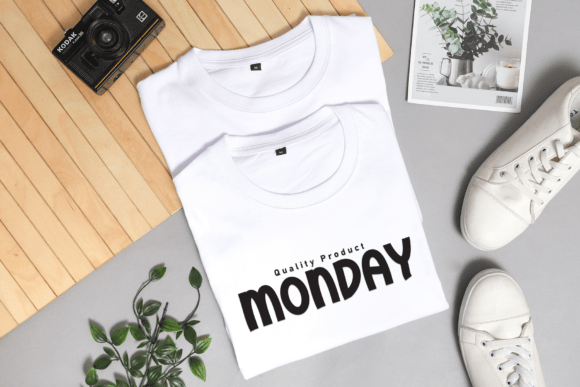
Cookies and Cream Font: A Perfect Blend of Simplicity and Friendliness
In the world of typography, fonts play a crucial role in conveying the tone and personality of a brand. Among the numerous fonts available, Cookies and Cream Font stands out for its unique blend of simplicity, friendliness, and approachability. This casual and neat display font has gained popularity for its ability to add a warm and inviting touch to various design projects. In this article, we’ll delve into the features, benefits, and uses of Cookies and Cream Font, exploring why it’s an excellent choice for designers and brands alike.
What is Cookies and Cream Font?
Cookies and Cream Font is a display font designed to capture the essence of modern handwritten typography with a polished finish. Its clean lines, balanced letterforms, and subtle rounded edges create a visually appealing and harmonious look. The font’s design is inspired by the classic and timeless feel of handwritten scripts, but with a modern twist that makes it perfect for contemporary design projects.
Key Features of Cookies and Cream Font
- Clean Lines: The font features clean and precise lines that give it a crisp and modern look.
- Balanced Letterforms: The letterforms are carefully crafted to ensure balance and harmony, making the text easy to read and visually appealing.
- Subtle Rounded Edges: The subtle rounded edges add a touch of friendliness and approachability to the font, making it perfect for brands that want to convey a warm and inviting image.
- Versatile Style: The font’s versatile style makes it suitable for a wide range of design projects, from branding and headlines to packaging and digital content.
Benefits of Using Cookies and Cream Font
Cookies and Cream Font offers several benefits that make it an excellent choice for designers and brands. Some of the key benefits include:
- Improved Readability: The font’s clean lines and balanced letterforms ensure excellent readability, making it perfect for body text and headlines.
- Enhanced Visual Appeal: The font’s subtle rounded edges and modern design give it a unique visual appeal that can enhance the overall look of a design project.
- Versatility: The font’s versatile style makes it suitable for various design projects, from print to digital media.
- Time-Saving: The font’s pre-designed characters and styles save designers time and effort, allowing them to focus on other aspects of the design project.
Uses of Cookies and Cream Font
Cookies and Cream Font is a versatile font that can be used in various design projects, including:
- Branding: The font’s modern design and friendly vibe make it perfect for branding projects, such as logos, business cards, and letterheads.
- Headlines: The font’s clean lines and bold styles make it suitable for headlines, titles, and subtitles.
- Packaging: The font’s versatility and visual appeal make it perfect for packaging design, including labels, tags, and product descriptions.
- Digital Content: The font’s readability and modern design make it suitable for digital content, such as website headers, social media graphics, and blog posts.
Why Choose Cookies and Cream Font?
Cookies and Cream Font is an excellent choice for designers and brands due to its unique blend of simplicity, friendliness, and approachability. Some of the reasons to choose this font include:
- Unique Design: The font’s modern design and subtle rounded edges give it a unique visual appeal that sets it apart from other fonts.
- Versatility: The font’s versatile style makes it suitable for various design projects, from print to digital media.
- Readability: The font’s clean lines and balanced letterforms ensure excellent readability, making it perfect for body text and headlines.
- Time-Saving: The font’s pre-designed characters and styles save designers time and effort, allowing them to focus on other aspects of the design project.
In conclusion, Cookies and Cream Font is a perfect blend of simplicity, friendliness, and approachability. Its clean lines, balanced letterforms, and subtle rounded edges make it a visually appealing and harmonious font. The font’s versatility, readability, and unique design make it an excellent choice for designers and brands looking to add a warm and inviting touch to their design projects. Whether you’re working on branding, headlines, packaging, or digital content, Cookies and Cream Font is a great option to consider.
- What is Cookies and Cream Font? Cookies and Cream Font is a casual and neat display font that combines simplicity with a friendly, approachable vibe.
- What are the key features of Cookies and Cream Font? The font features clean lines, balanced letterforms, and subtle rounded edges.
- What are the benefits of using Cookies and Cream Font? The font offers improved readability, enhanced visual appeal, versatility, and time-saving.
- What are the uses of Cookies and Cream Font? The font can be used in branding, headlines, packaging, and digital content.